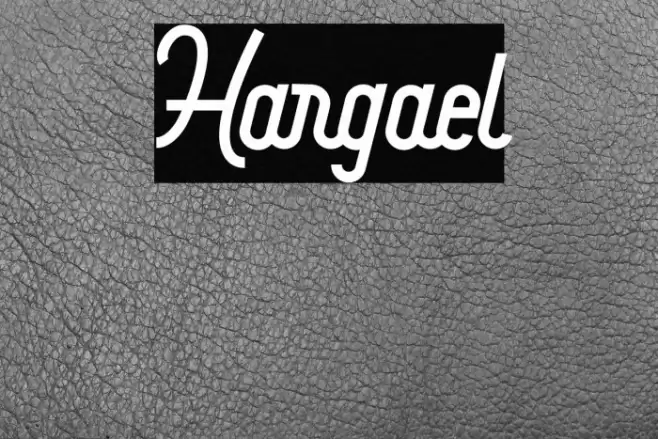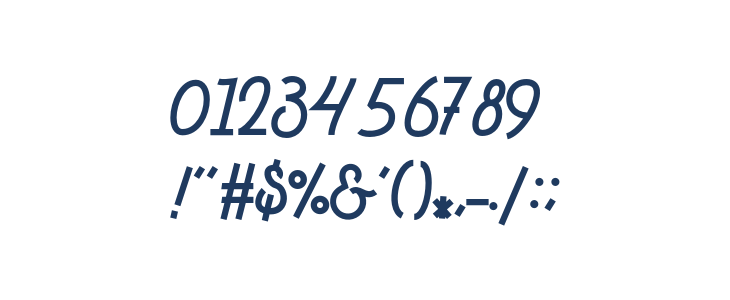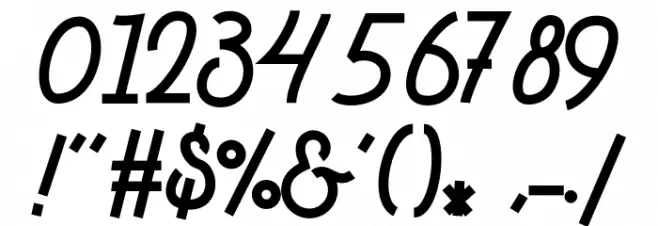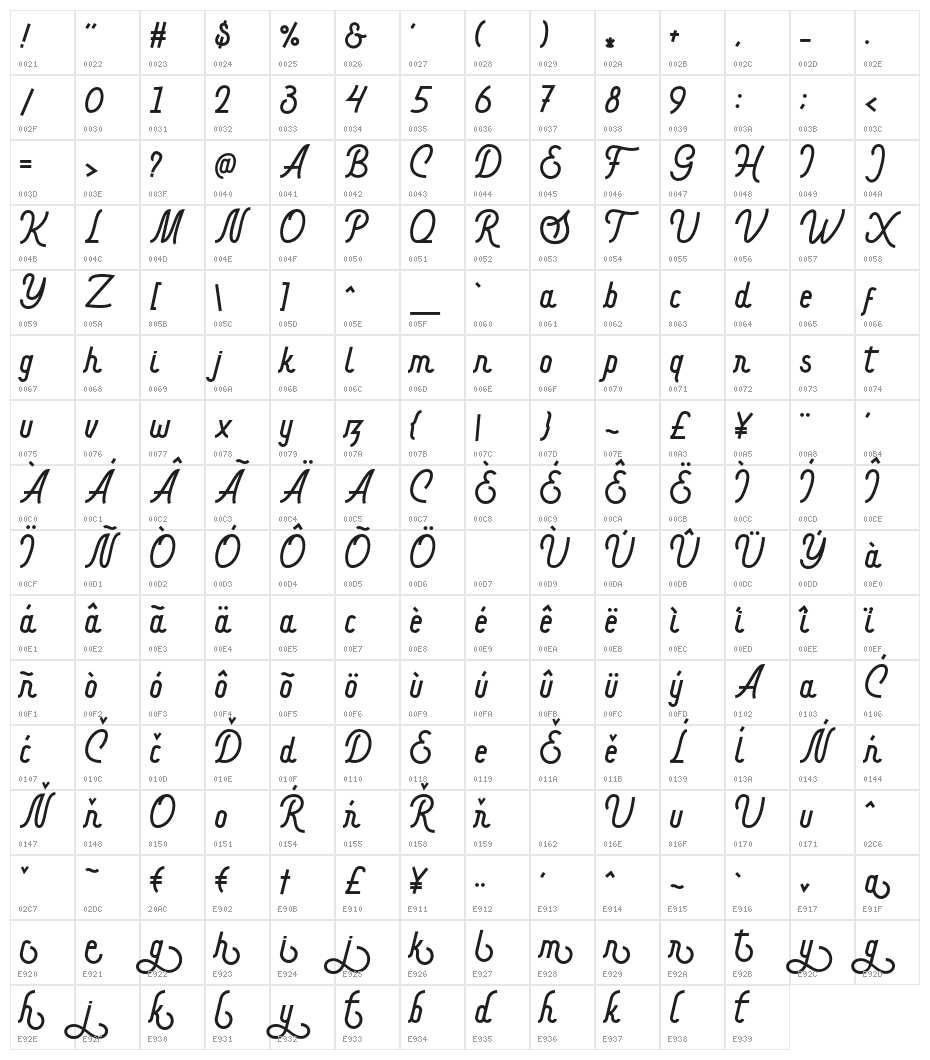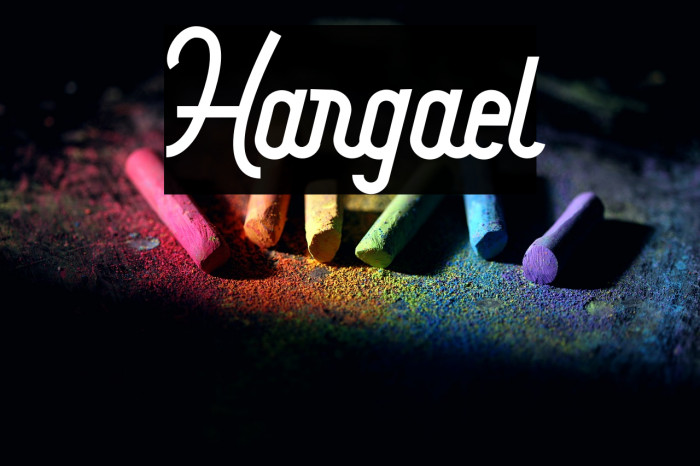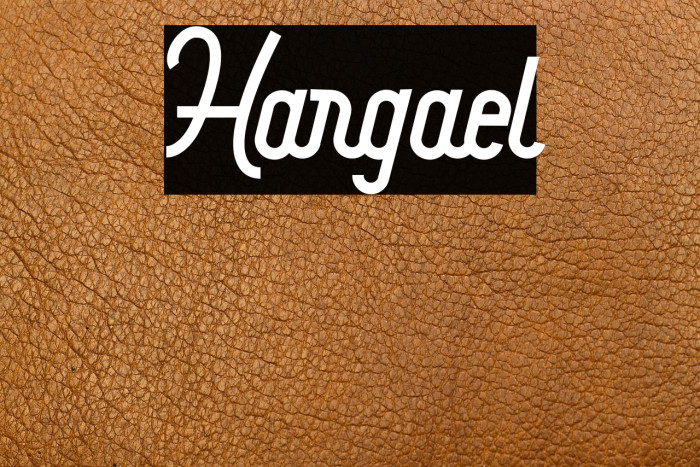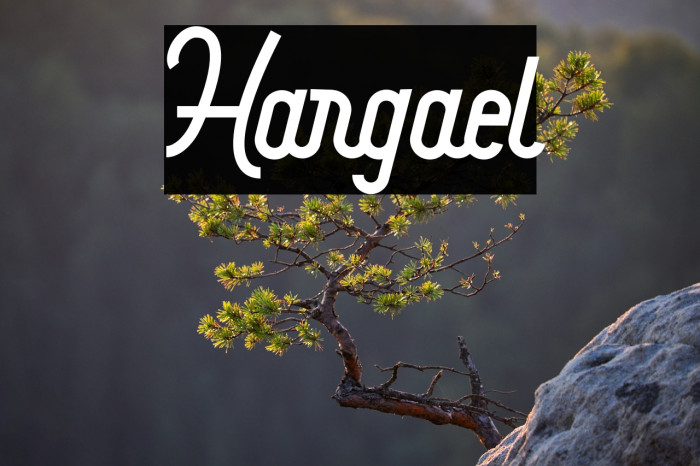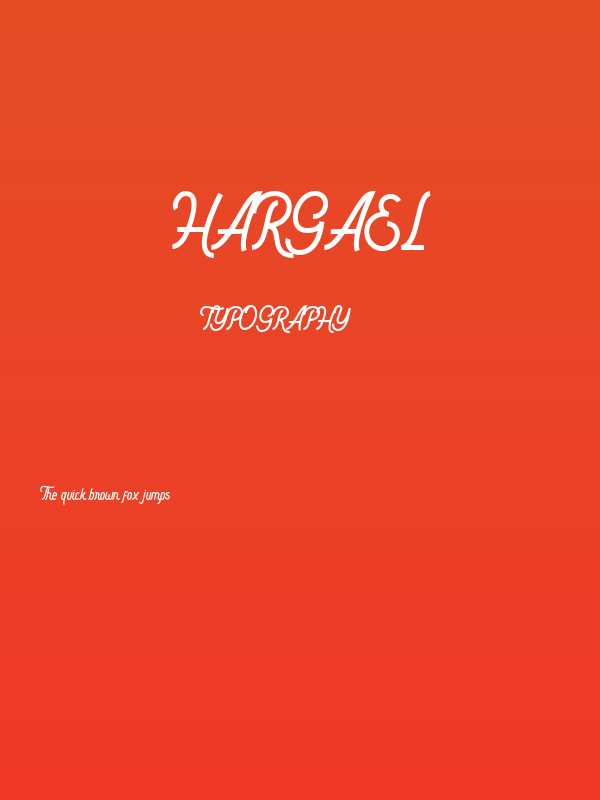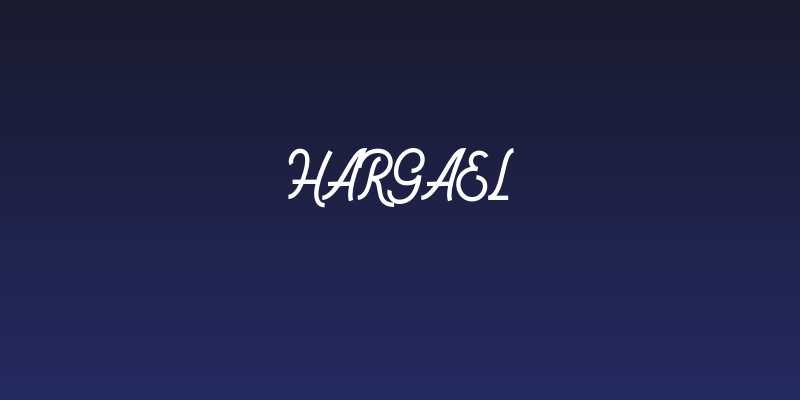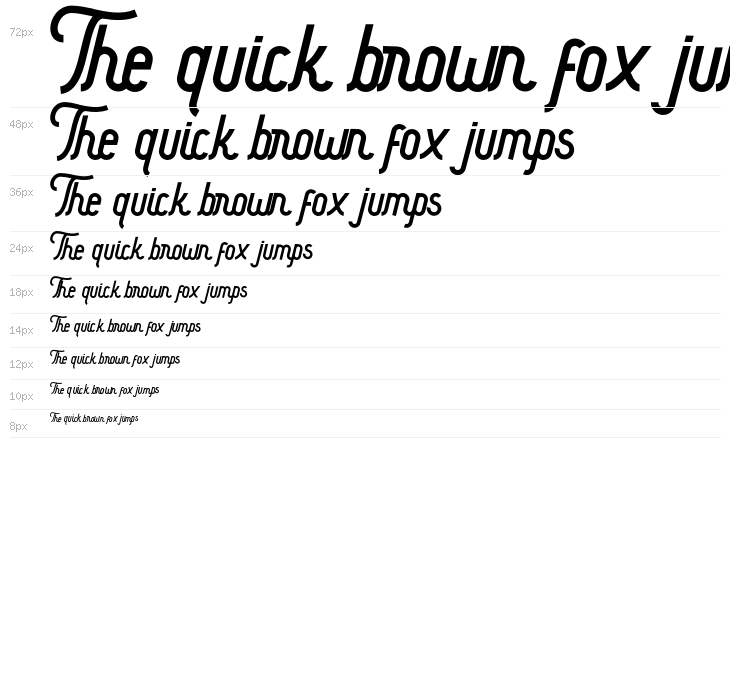
Hargael Font
Hargael Description
This font features a dynamic and fluid script style, characterized by its elegant, flowing curves and connected letterforms. The uppercase letters exhibit a sophisticated flair with elongated strokes, while the lowercase letters maintain a consistent rhythm and smooth transitions. The numerals are bold and slightly slanted, matching the overall cursive aesthetic. Special characters are thoughtfully integrated, maintaining the font's cohesive look. This font's design is both expressive and versatile, suitable for a variety of creative applications.
A dynamic script font with elegant, flowing curves and connected letterforms from Regular fonts.
- Proposed Projects: Ideal for wedding invitations, branding, logo design, and elegant stationery.
- Overall Style: Elegant
- Use Case: Logos, Invitations, Branding